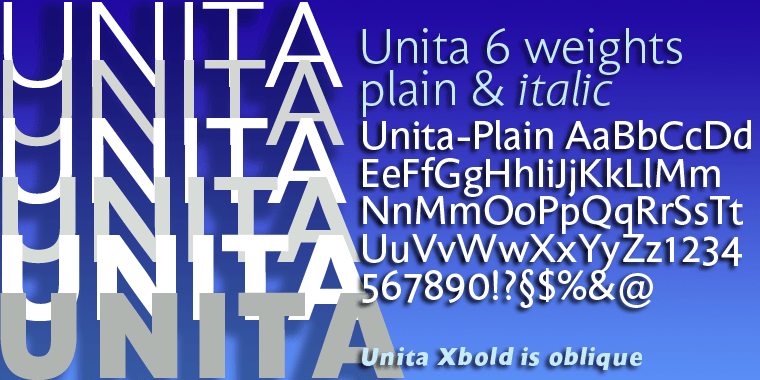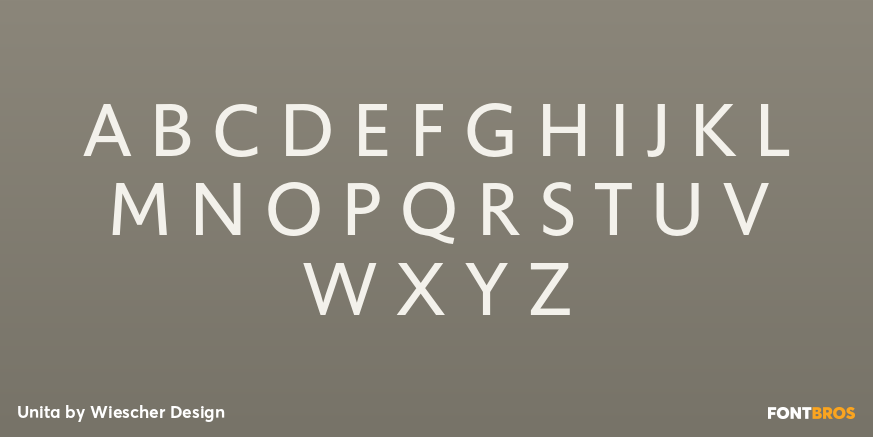
Unita
Font Family by Wiescher Design
Unita is my version of a classic Grotesk or Sans typeface.
I took the best forms of some classic typefaces and combined those forms into my new font, hence the name Unita. I designed six weights in plain and italic, only the extrabold is out of design reasons not a real italic, but an oblique typeface. I sell the pairs of plain and italic cuts for a single price and I offer the complete set of 12 fonts for less than half price.